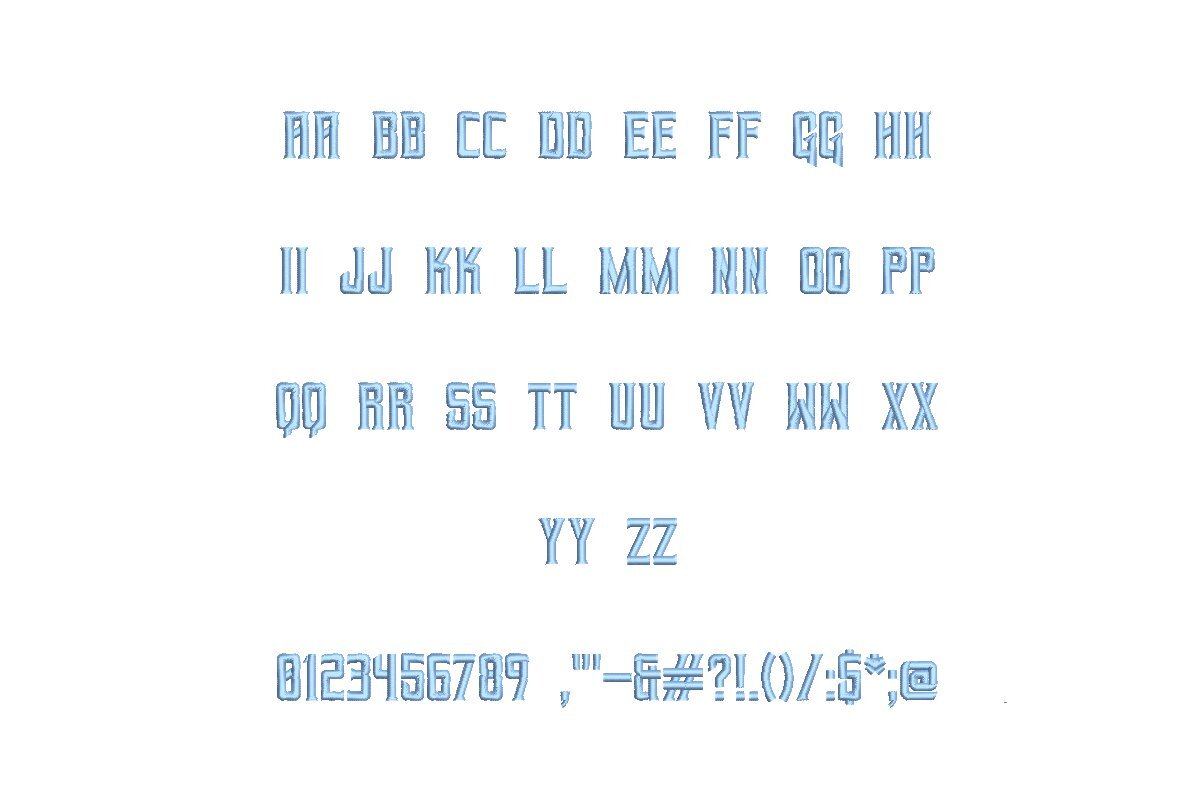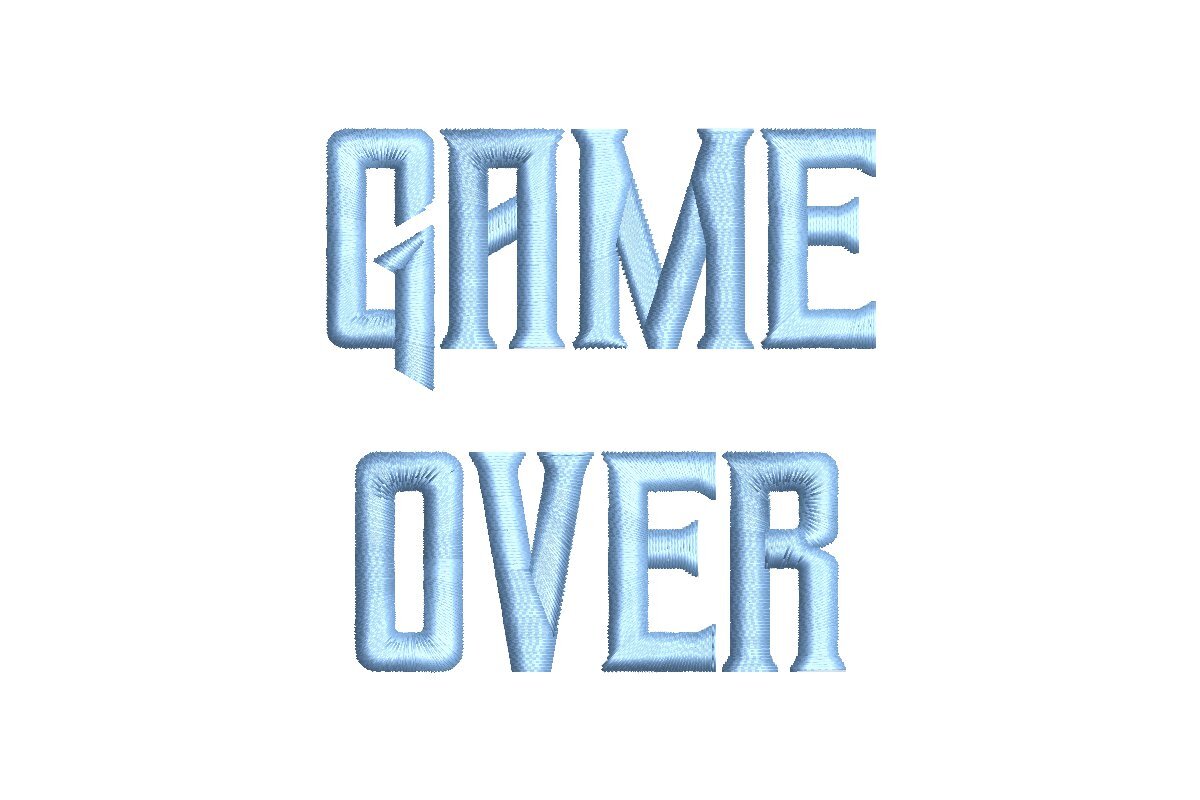
Introducing Game Over ESA Font - Your Gateway to Bold Embroidery! Designed to flawlessly integrate with Wilcom Studio e4.5.6 and Hatch 3 versions and beyond, this font is your key to making a statement with embroidery. Its bold, captivating design adds an exciting edge to your projects, ensuring they stand out with impact. Achieve professional-grade embroidery effortlessly with this user-friendly digitized font that promises precision in every stitch. Immerse yourself in a world of creative possibilities with Game Over ESA Font, and elevate your Wilcom Studio and Hatch software. Choose boldness over the ordinary - upgrade today for an extraordinary embroidery adventure. Your designs deserve the spotlight.